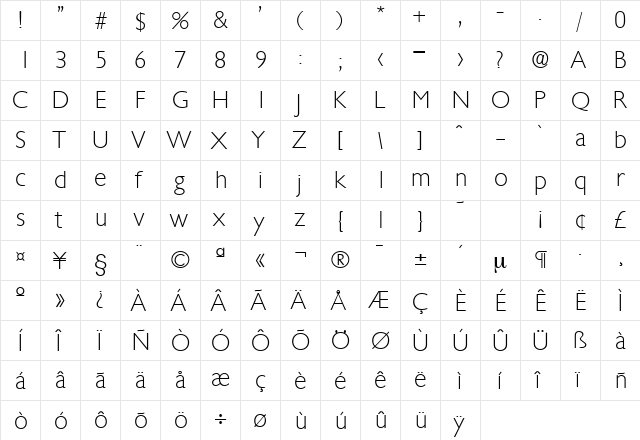
Chantilly-Serial-ExtraLight Regular
Design Context for Chantilly-Serial-ExtraLight Typeface
Chantilly-Serial-ExtraLight offers clean, dependable letterforms without strong stylistic allegiance, making it a practical choice for designers who need flexibility. Its slender proportions lend an understated elegance to any composition.